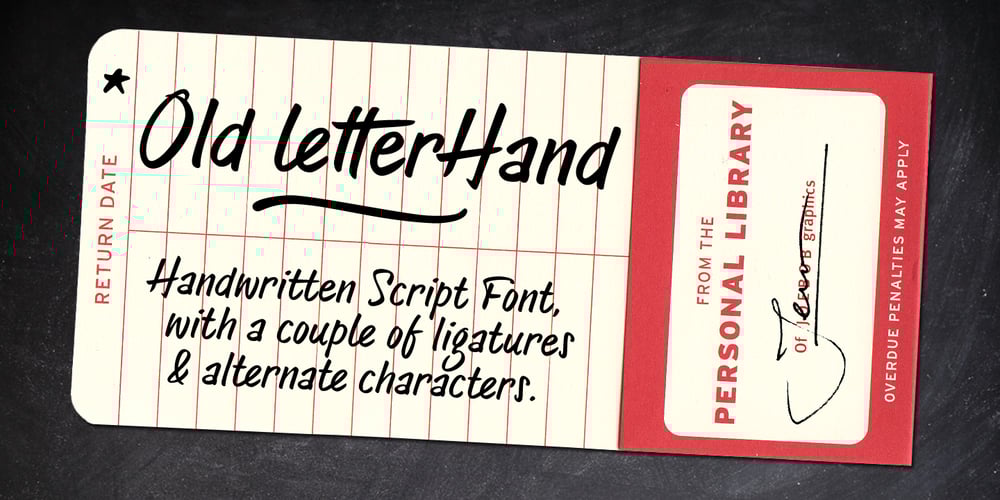
Old Letterhand
Old Letterhand font
Old Letterhand Font Family was designed by Jeroen “Joebob” van der Ham and published by JOEBOB graphics. Old Letterhand contains 1 styles and family package options. ‘Old letterHand’ is a very legible handwritten script font, created with a fine brush pen. The font was made with old style lettered ads in mind but it is has a modern look. It features a couple of ligatures, alternate characters and a few swashes for you to play around with. Related fonts are fourHand and blackHand.